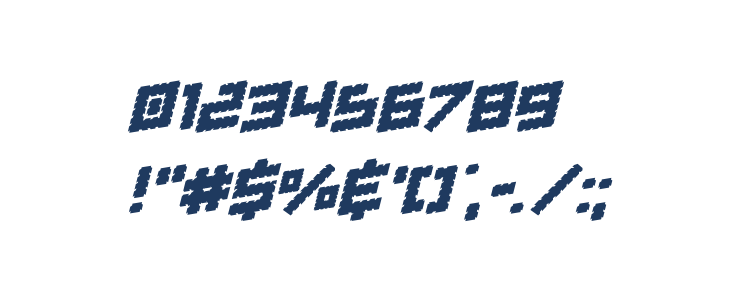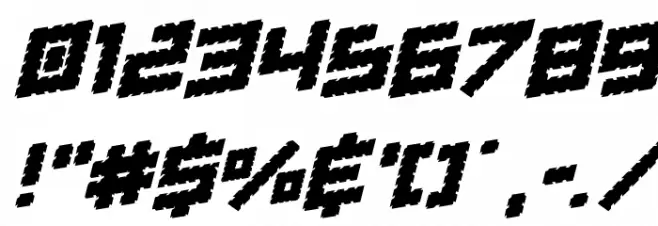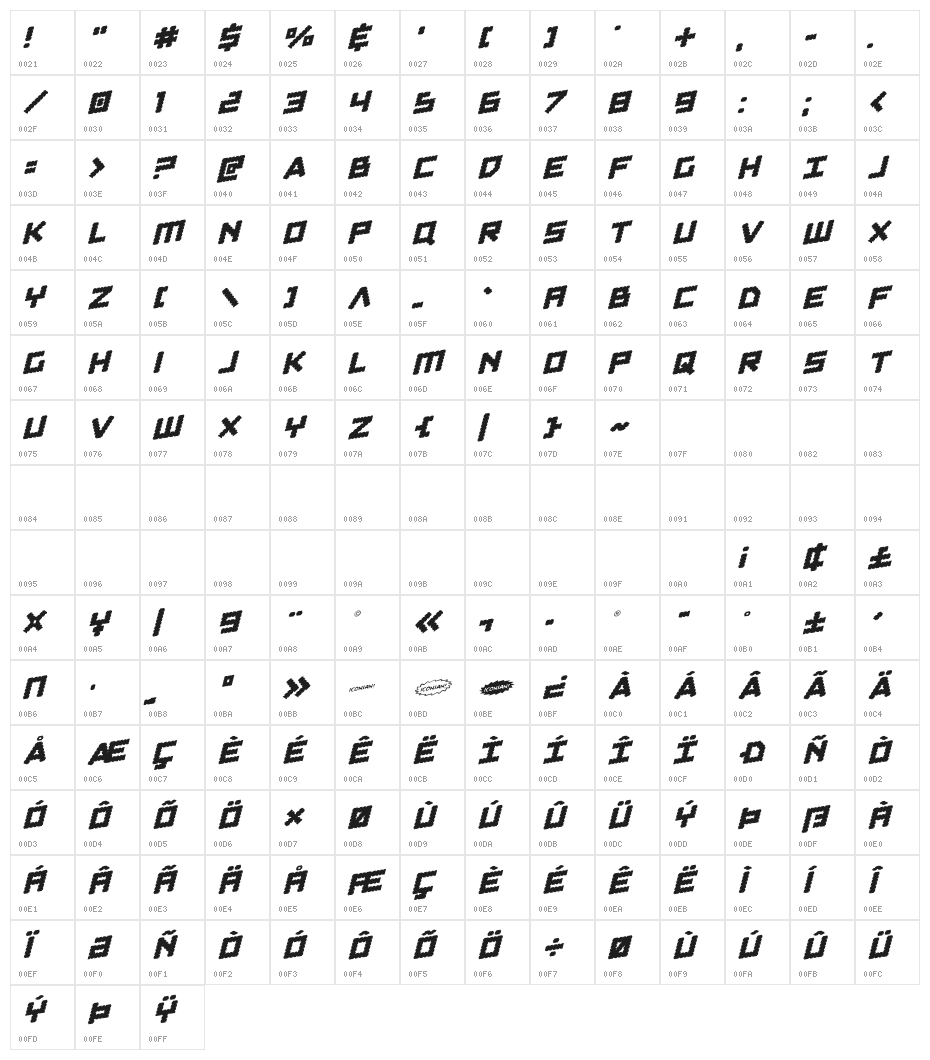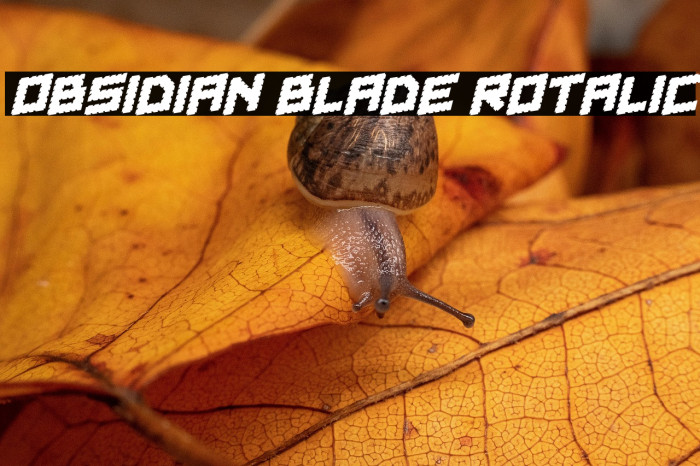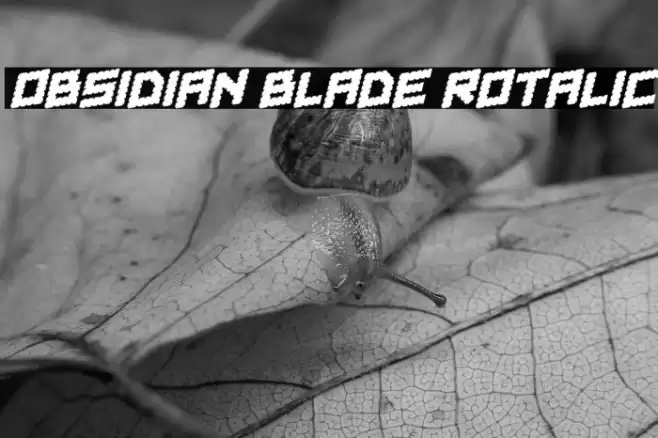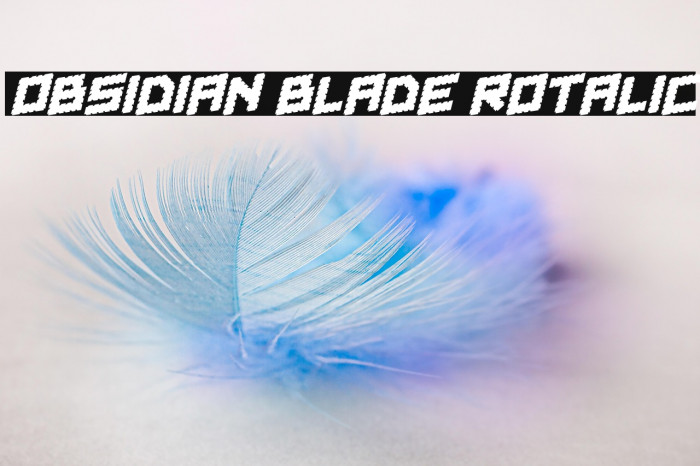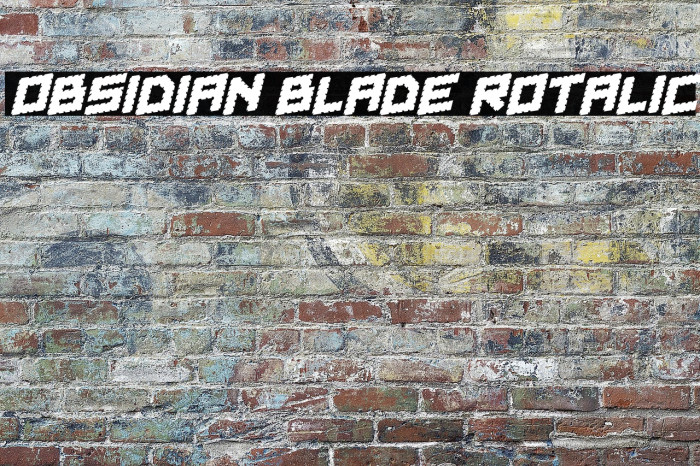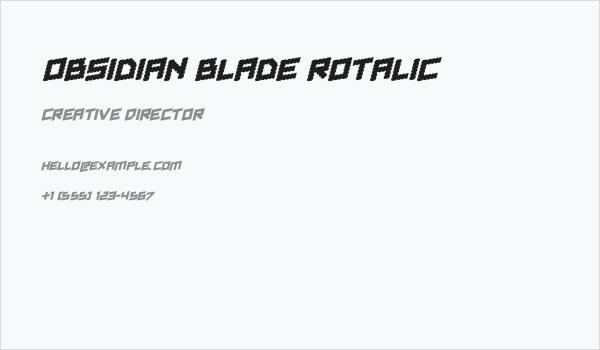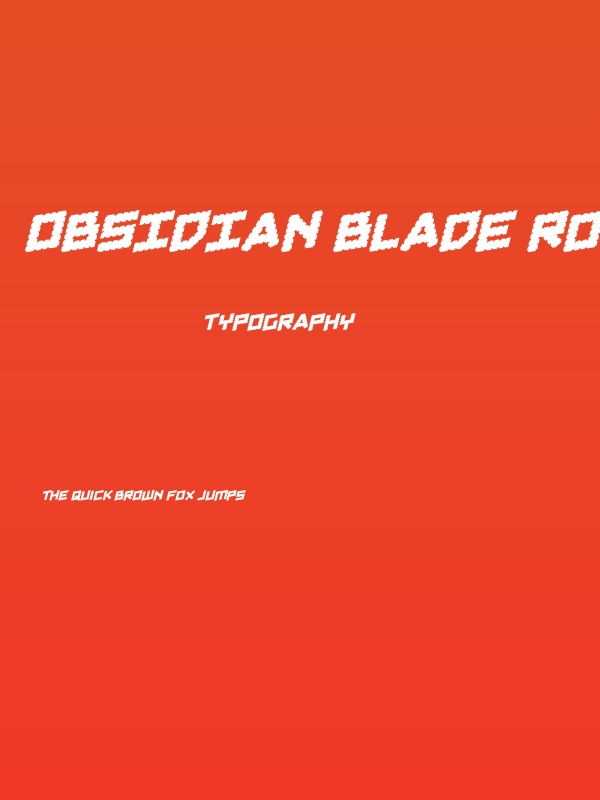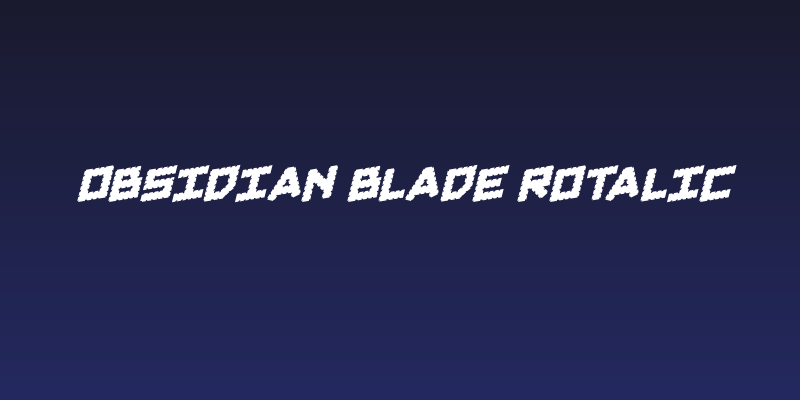
Obsidian Blade Rotalic Font
Obsidian Blade Rotalic Description
This font features a bold, angular design with a distinct slant, giving it a dynamic and aggressive appearance. The characters are constructed with sharp, jagged edges that resemble blades, creating a sense of motion and intensity. The uppercase and lowercase letters maintain a consistent style, with the same edgy characteristics applied uniformly across the alphabet. Numbers and special characters are equally bold and stylized, ensuring a cohesive look throughout. The font's unique style makes it stand out, ideal for projects that require a strong visual impact.
| Overall Style | Modern, Aggressive |
| Proposed Projects | Ideal for video game titles, sports branding, action movie posters, and edgy graphic designs. |